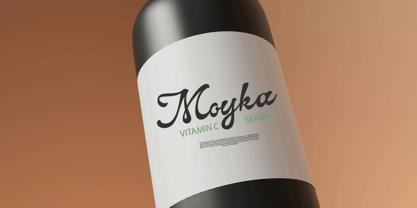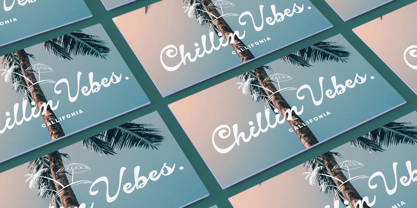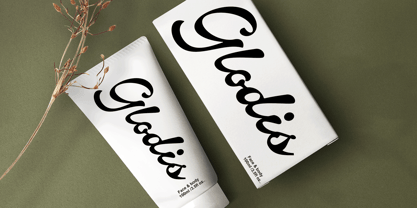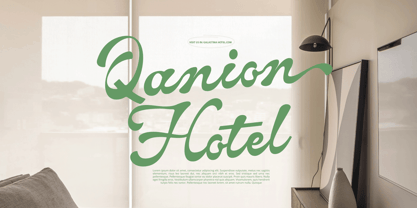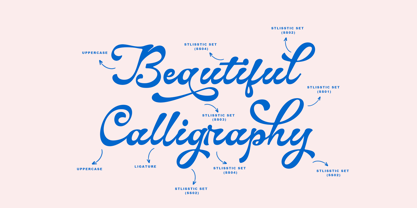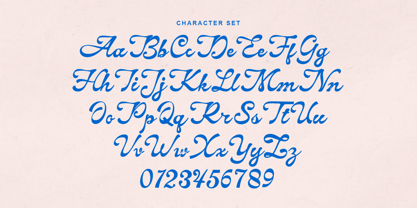
Alfino Script
The Alfino Script Font Family was designed by Zaki Muhammad and published by madjack.font. Alfino Script contains 1 styles. More about this family
Alfino Script, a new Bold typeface with rounded scripts. Resulting in a much more fun, trendy, and beautiful look. Perfect for crafts, branding, logos, invitations, stationery, wedding designs, social media posts, advertisements, product packaging, product design, labels, posters, photography, special events, or anything else. Font Features: Uppercase Lowercase Number & multilingual support Ligatures Alternative styles and swashes Thank you!